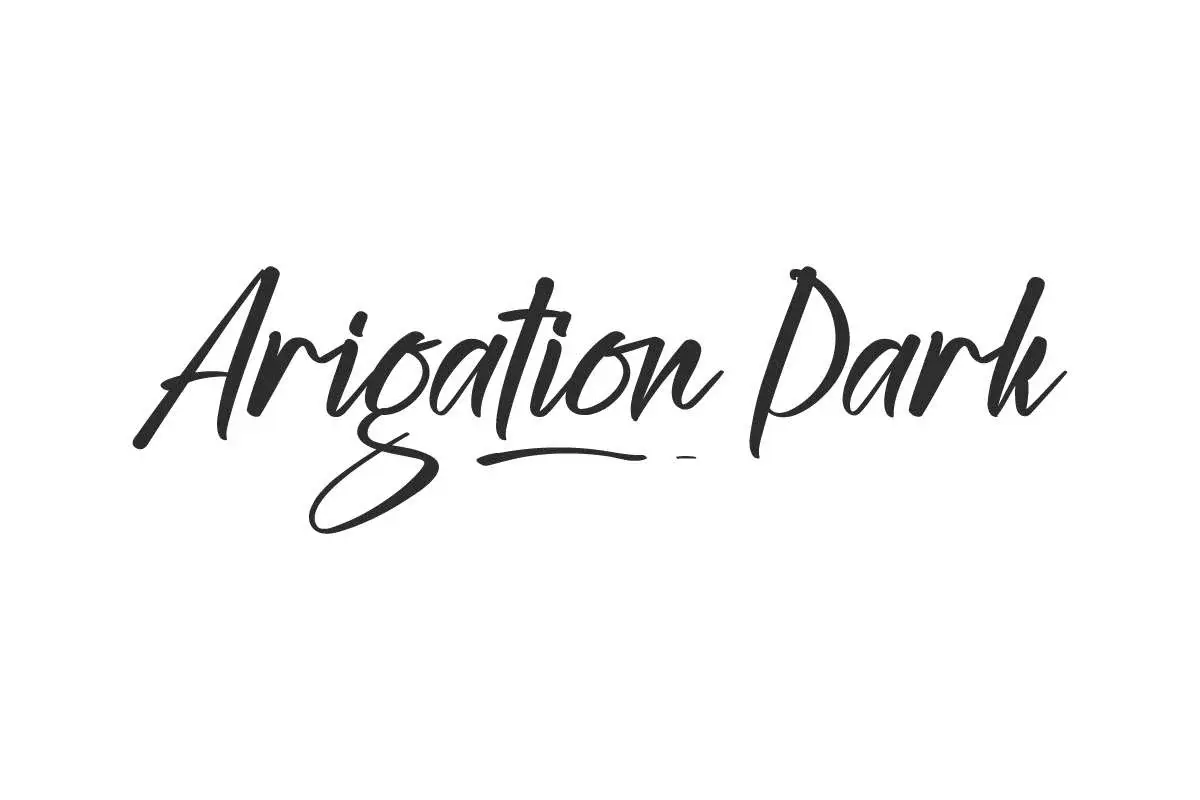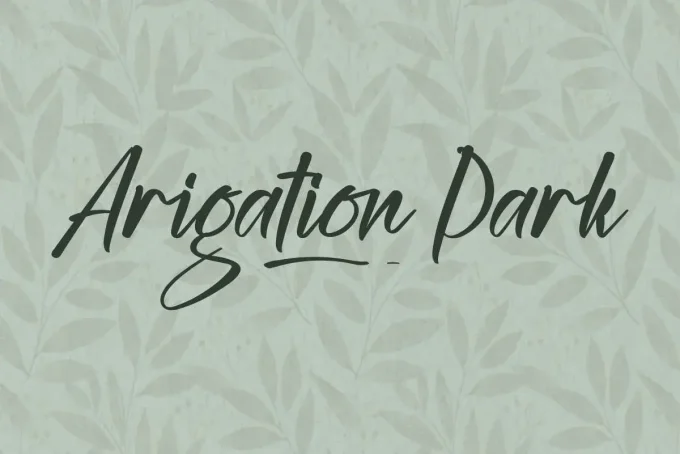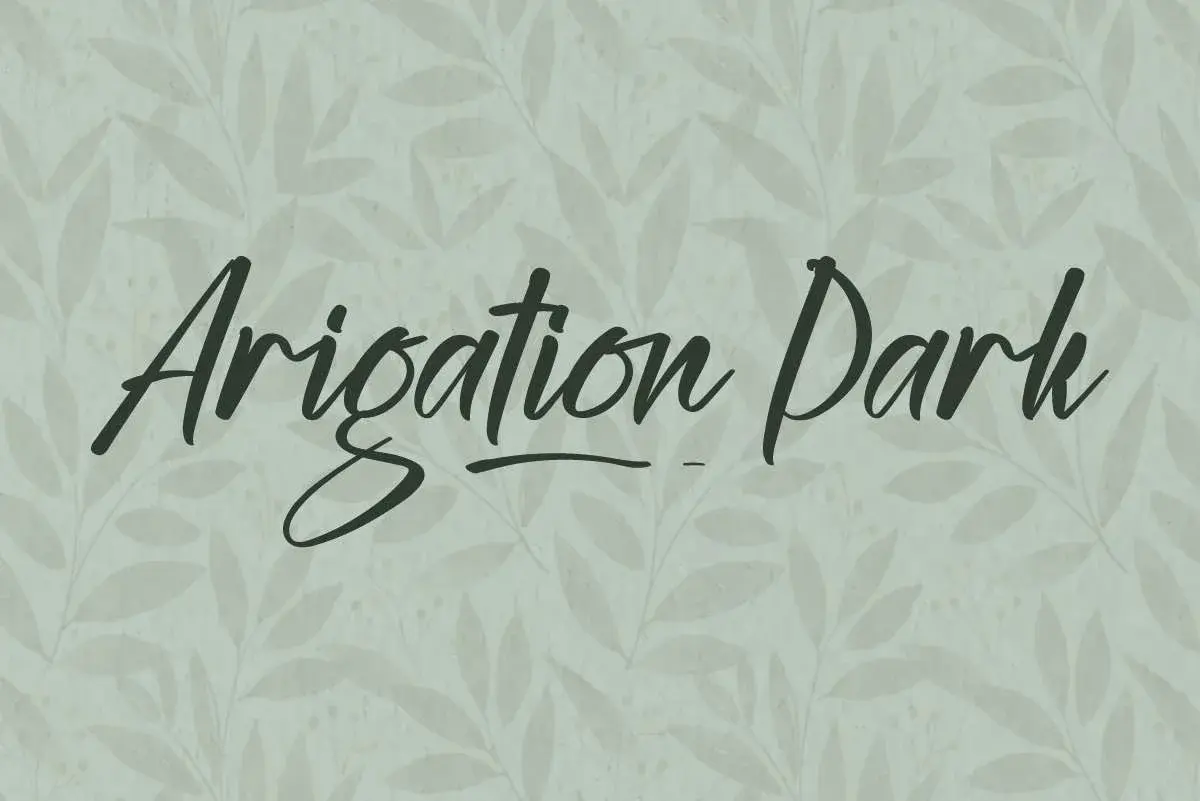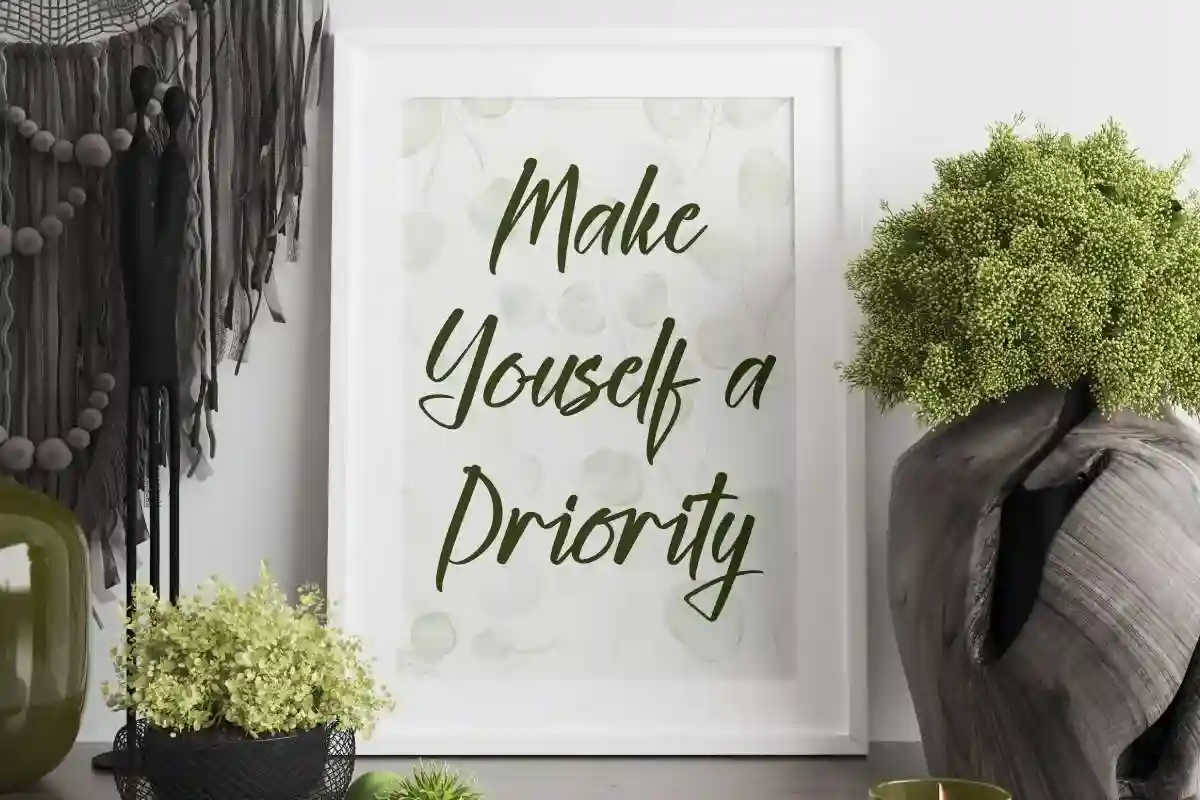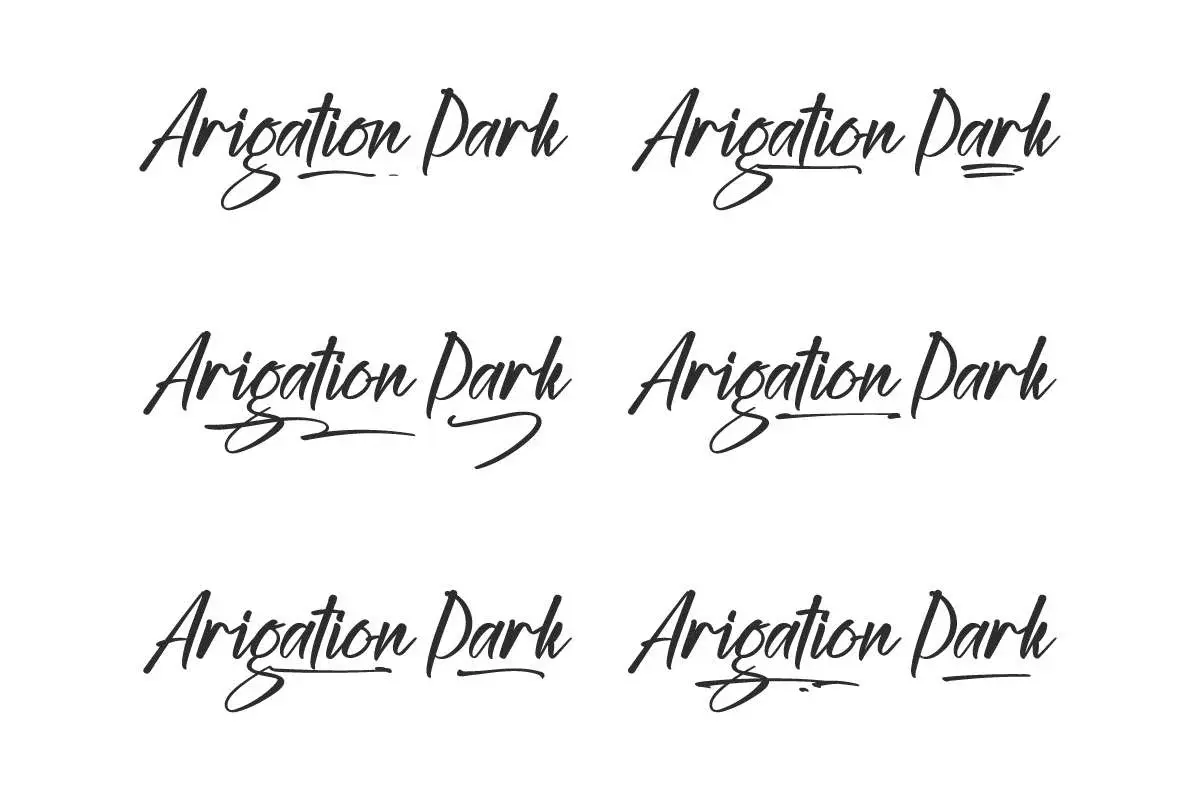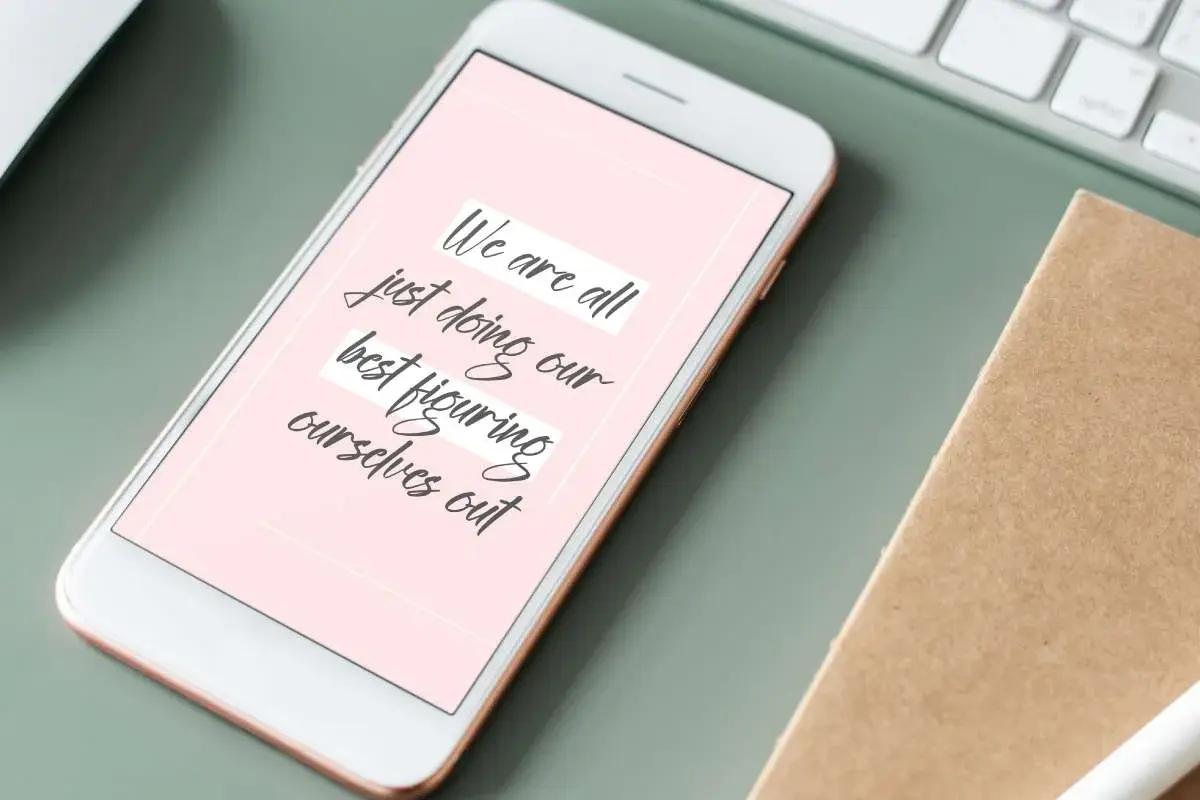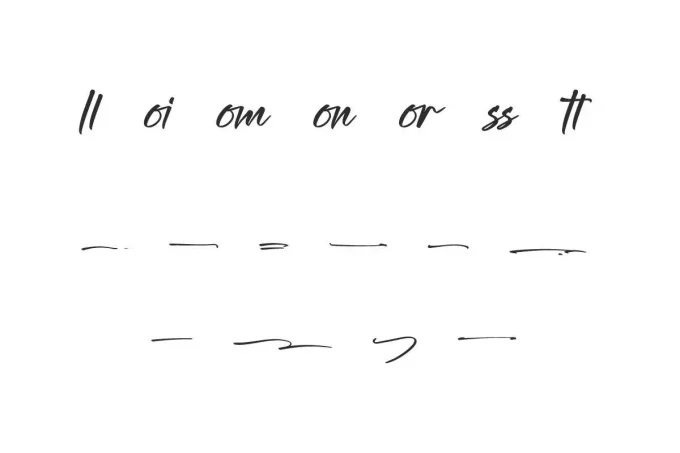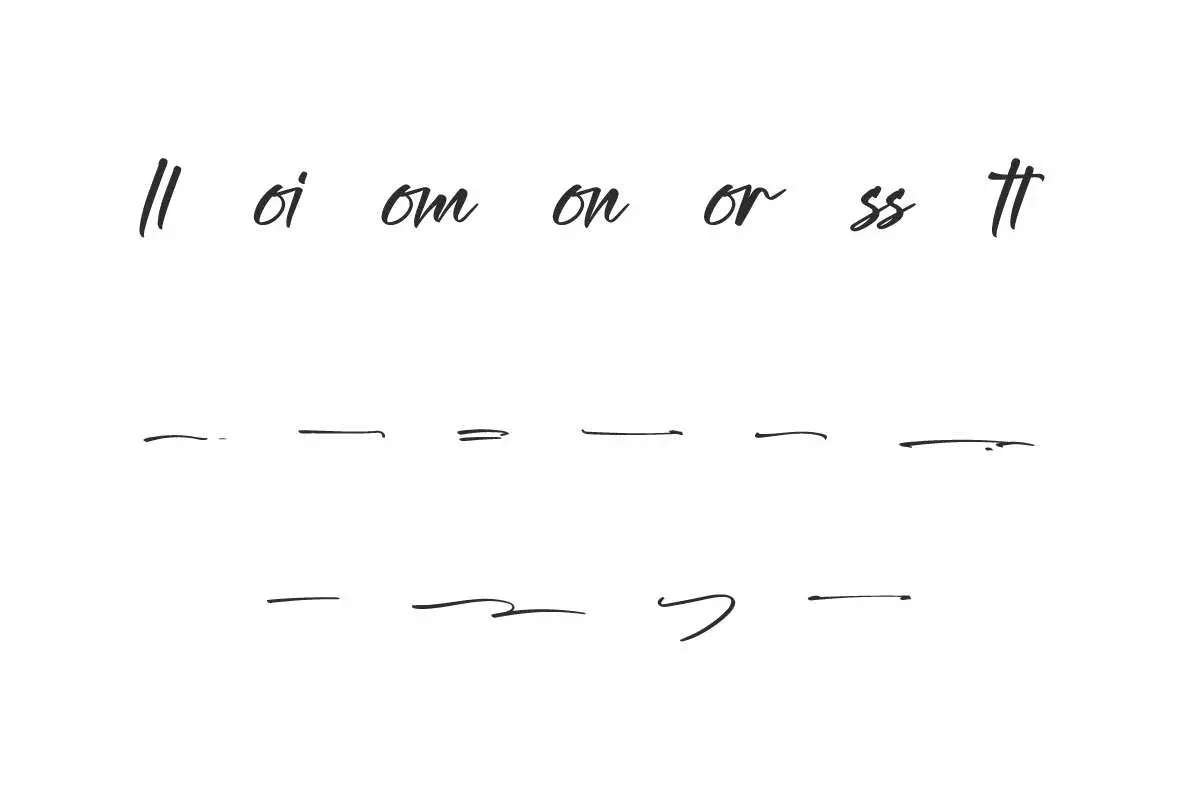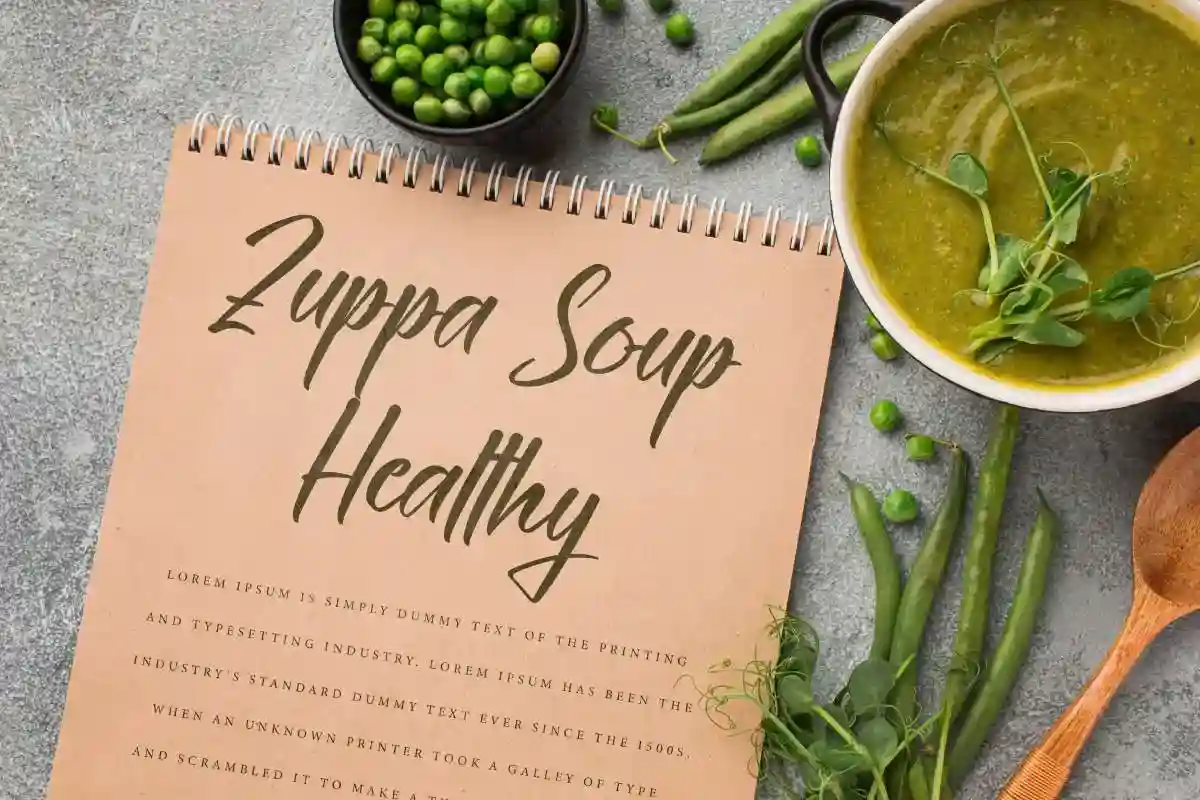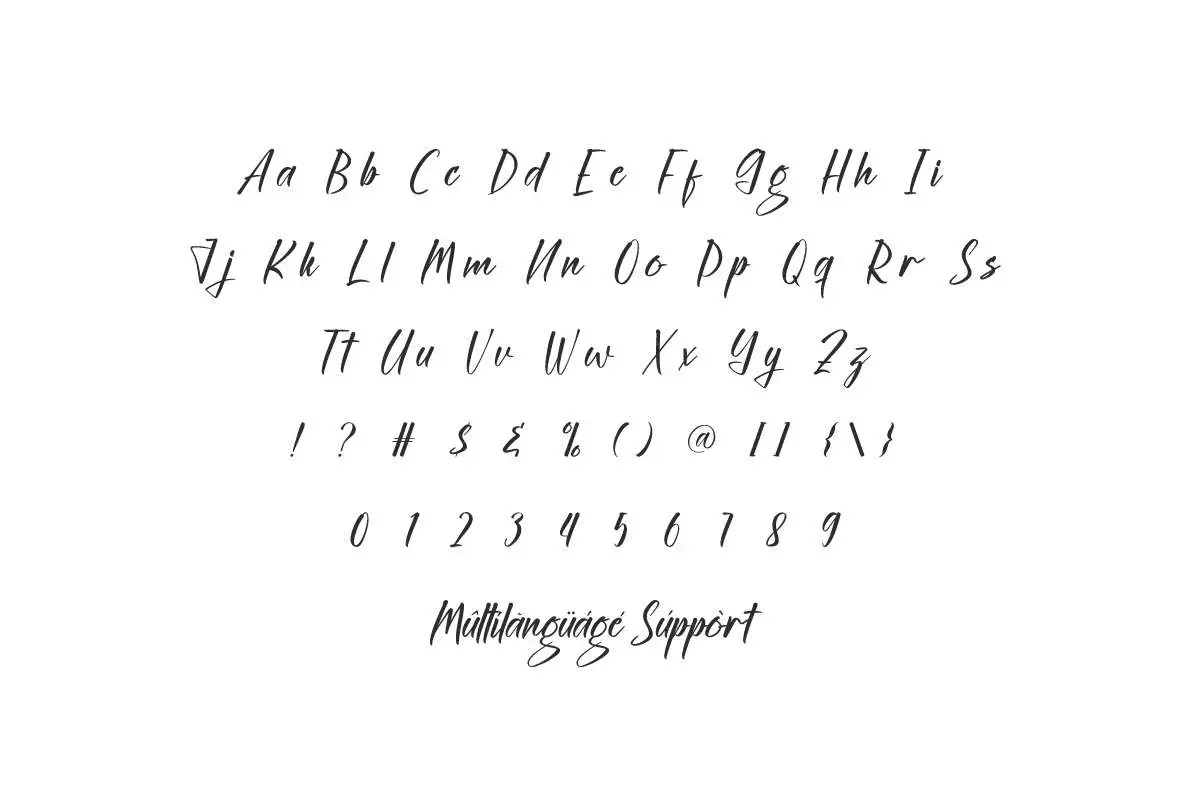
Arigation Park Font is an awesome slightly strong brush script display with a timeless line shapes. It will be perfect for personal brandings, weddings, florist brands, furniture, handicraft, healthcare, promotions quote, fashions brand, etc.
Arigation Park Font is an awesome slightly strong brush script display with a timeless line shapes. It will be perfect for personal brandings, weddings, florist brands, furniture, handicraft, healthcare, promotions quote, fashions brand, etc.. It has a natural, clean and tidy look to each character. Inspired by the calming nuances of nature and will be perfect for adding to the visual beauty of your designs, such as apps, brand logo, business card, cover, embossed design, header, quote, screen print, title, etc.
Arigation Park Font comes with a full set of Uppercase and Lowercase Basic Characters, Number, Punctuation, Symbol. Also with Ligature character for perfect binding and Swoosh character to make it stand out. Use this for your business industry such as, brand fashion, event organizer, farming, florist, furniture, handicraft, healthy food, homeware, pottery, printing, publishing, real estate, restaurant, skincare, spa salon, wedding, women’s fitness, etc.